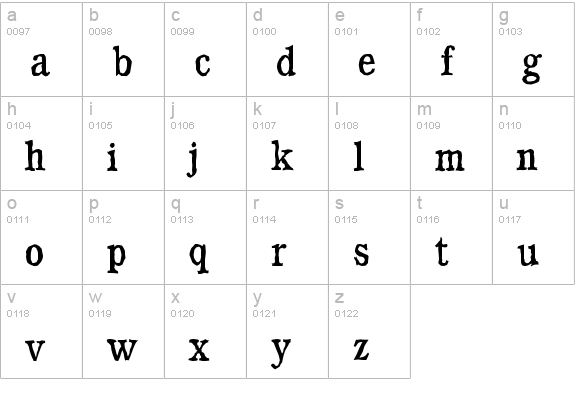
CalgaryAntique-Regular is the standard, neutral variant in the CalgaryAntique typeface family \xE2\x80\x94 well suited to general body text, paragraphs, and standard typographic work.
CalgaryAntique-Regular is a charming and elegant antique-inspired font that exudes a sense of nostalgia and sophistication. With its intricate details and classic design, this font evokes a timeless feel that is perfect for adding a touch of vintage flair to your projects. What sets CalgaryAntique-Regular apart is its versatility - it can be used for a variety of purposes, from branding and packaging to invitations and signage. Its unique character and old-world charm make it a standout choice for those looking to make a statement with their typography. Best of all, CalgaryAntique-Regular is freely available to download at FontsMarket.com. This means you can easily access this beautiful font and incorporate it into your designs without any hassle. Don't miss out on the opportunity to enhance your creations with the timeless beauty of CalgaryAntique-Regular. Download it today and let your creativity shine!